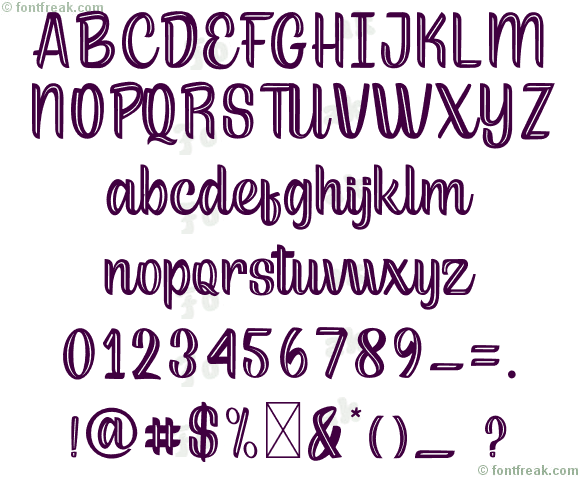
Quoote
Quoote by Eknoji Studio is an elegant handwritten font that seamlessly blends artistry with functionality. This unique typeface exhibits a fluid, flowing style characterized by its medium stroke weight and subtle contrast, giving it a warm and inviting feel. The letters are well-spaced, ensuring readability while maintaining a personal touch. Quoote features playful swashes and gentle curves that add a decorative quality, making it perfect for a variety of creative applications.
This font is particularly well-suited for wedding invitations, where its romantic style can enhance the overall aesthetic. Additionally, it shines in crafting eye-catching movie posters, allowing titles to stand out with a dynamic flair. Quoote is also ideal for restaurant menus, bringing a touch of sophistication to food and drink offerings, while content creators can use it in social media graphics to convey a friendly, approachable vibe. Its versatility ensures that it can cater to diverse design needs.